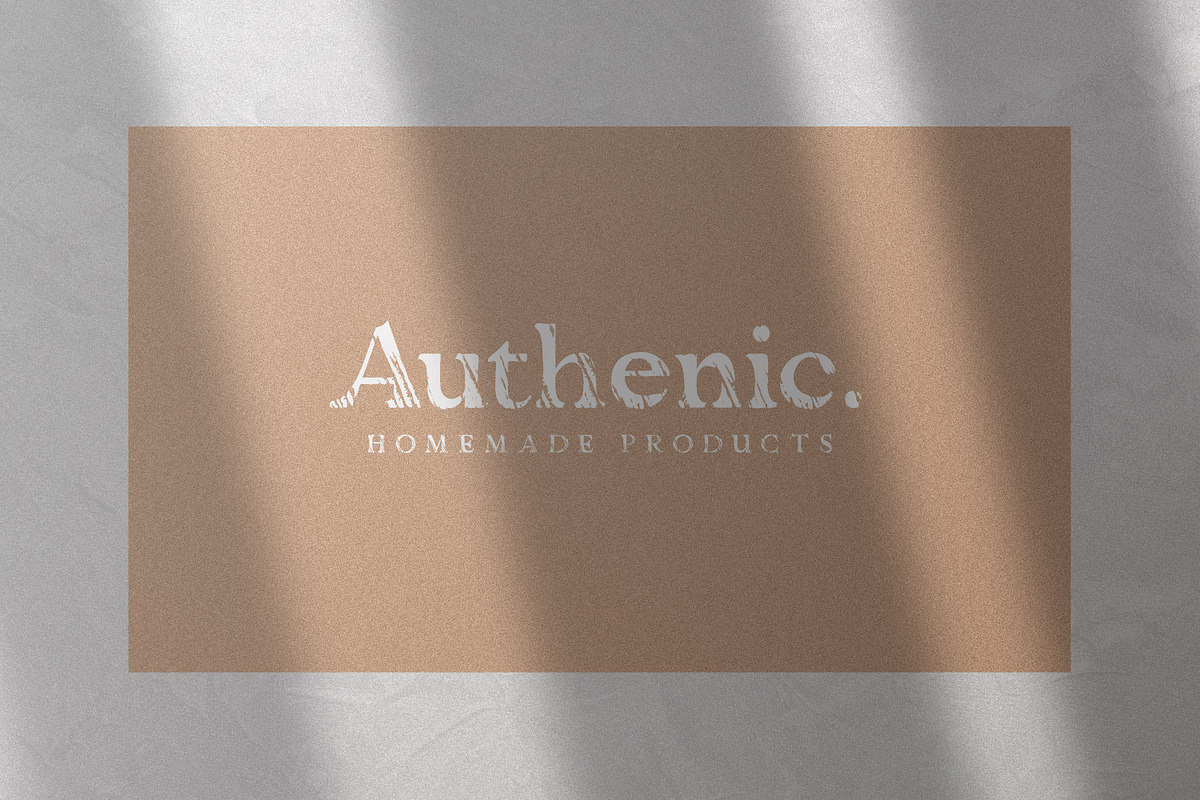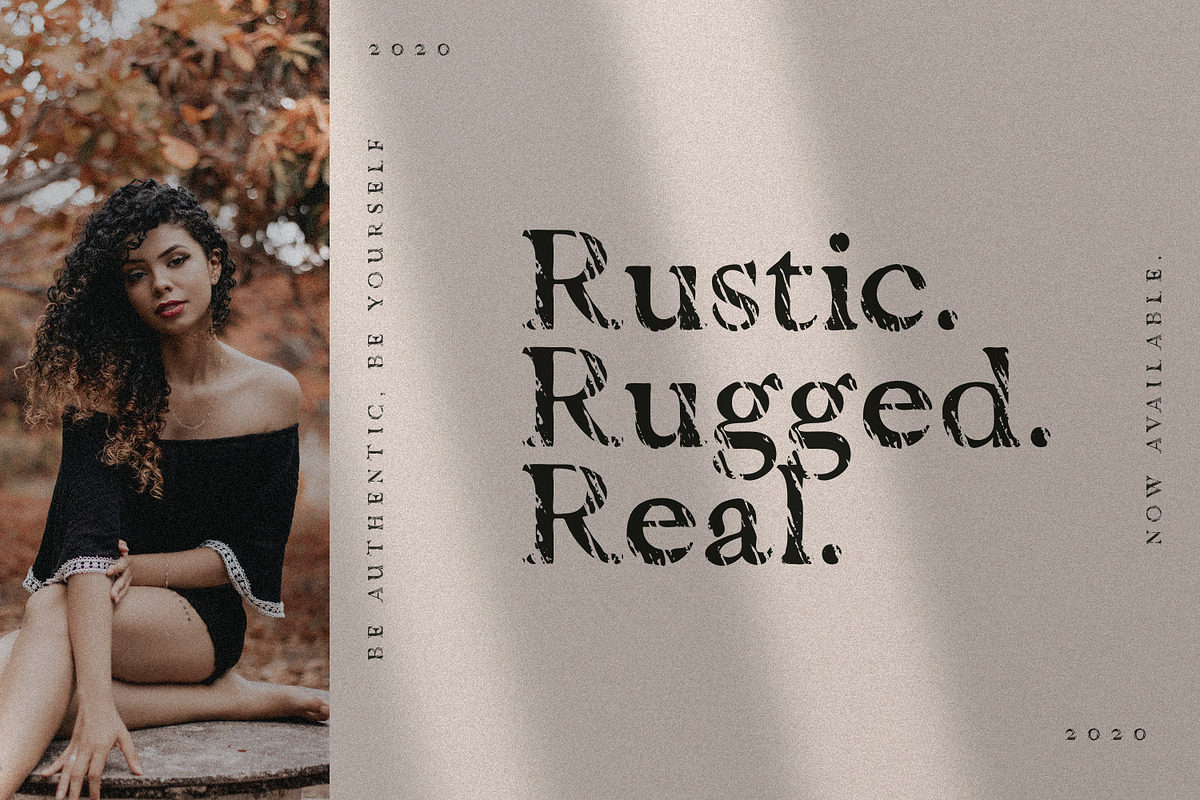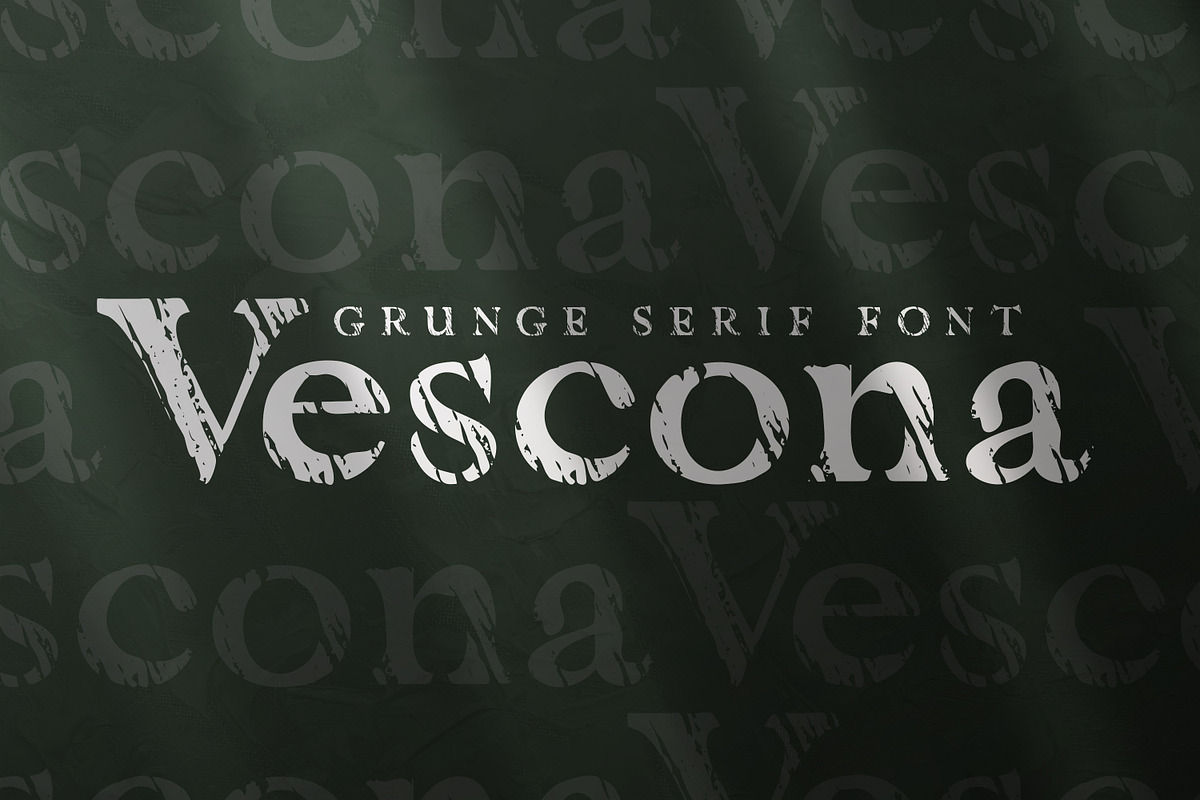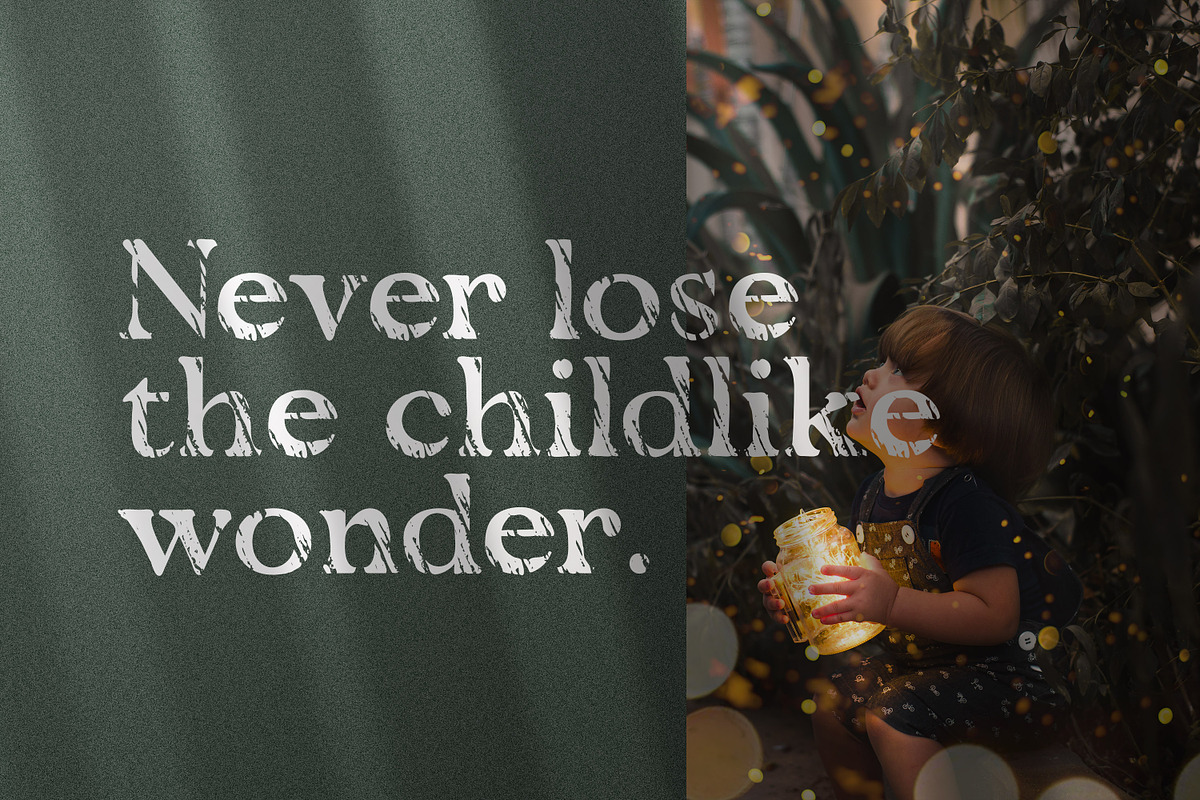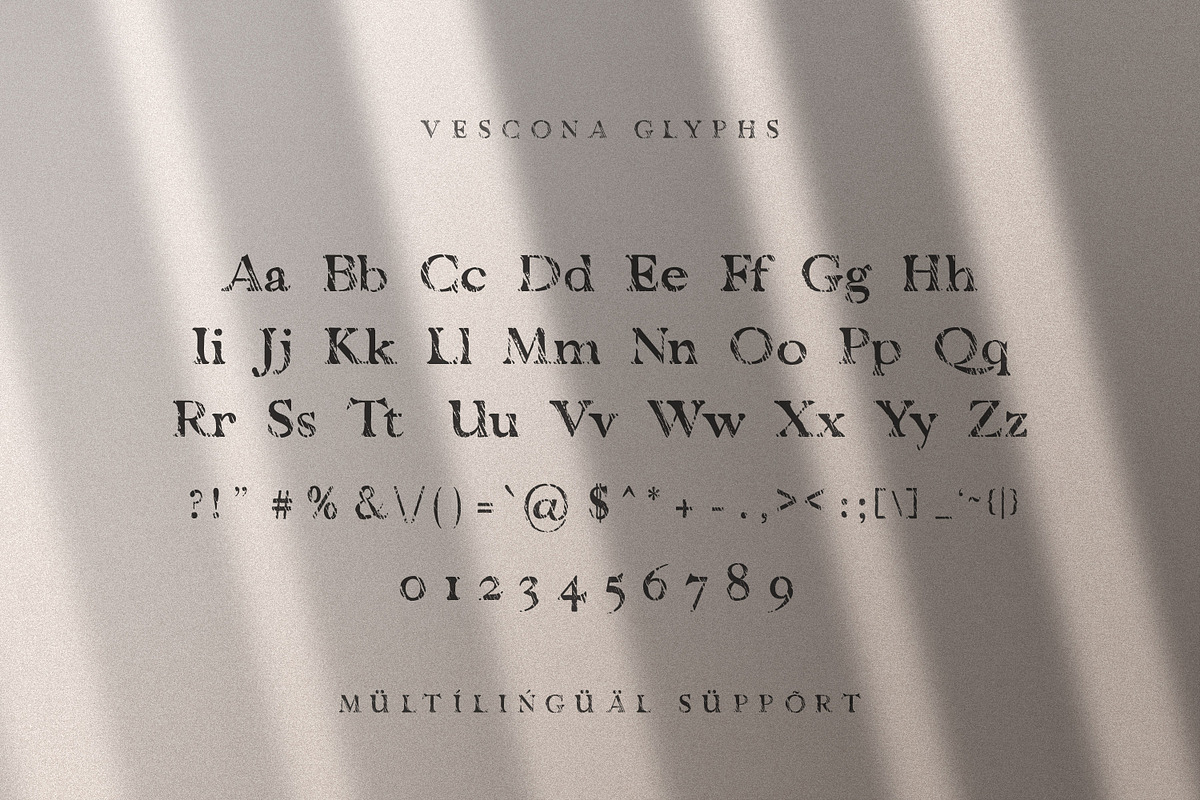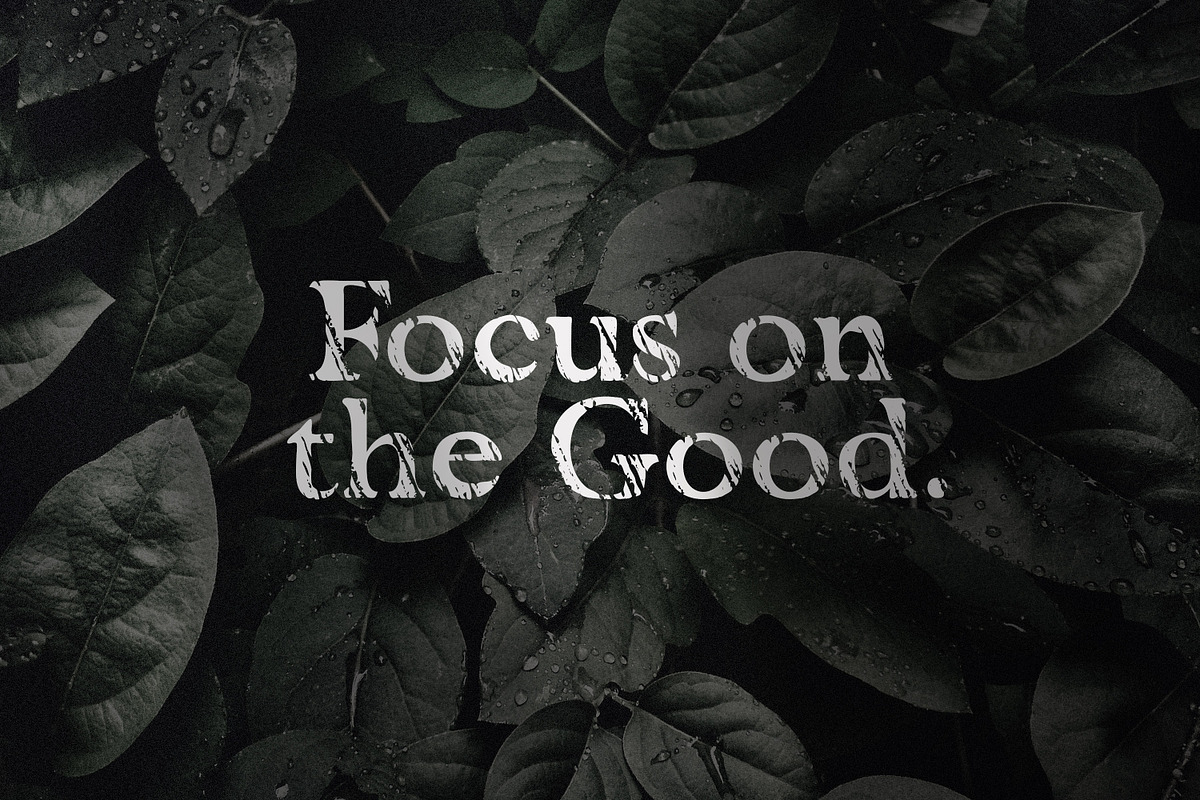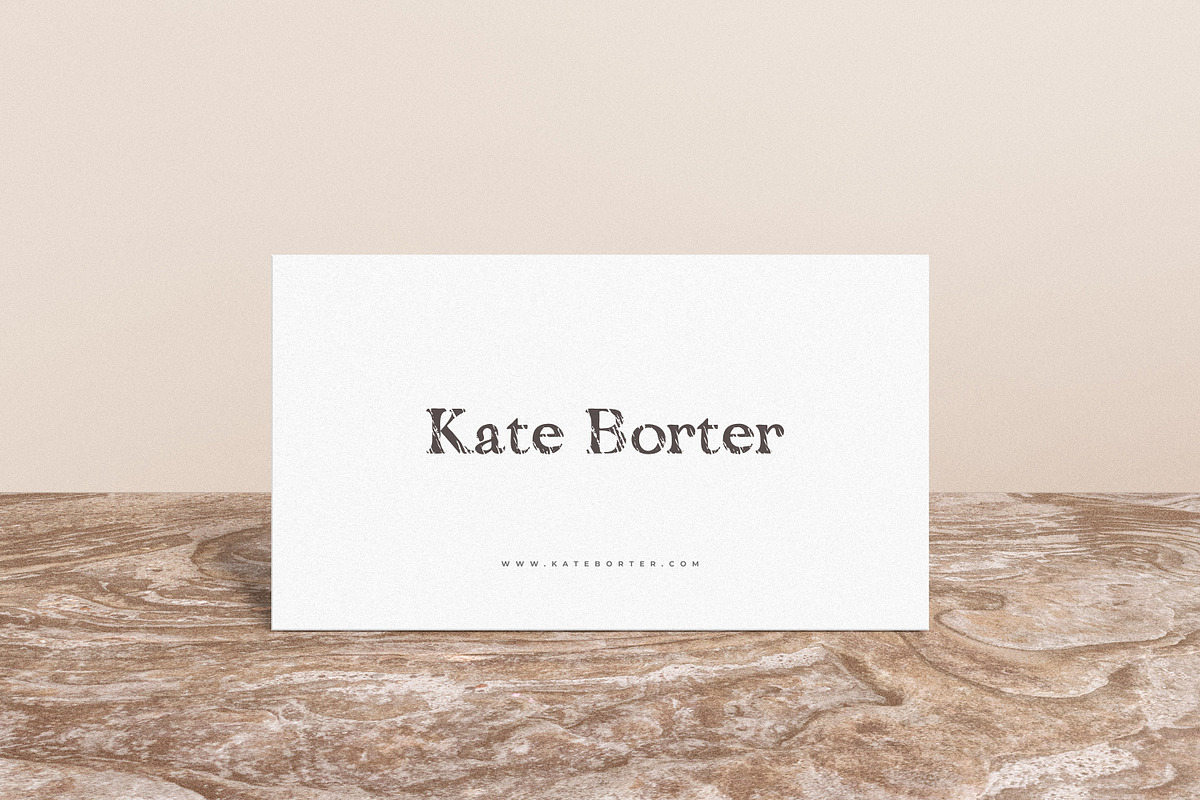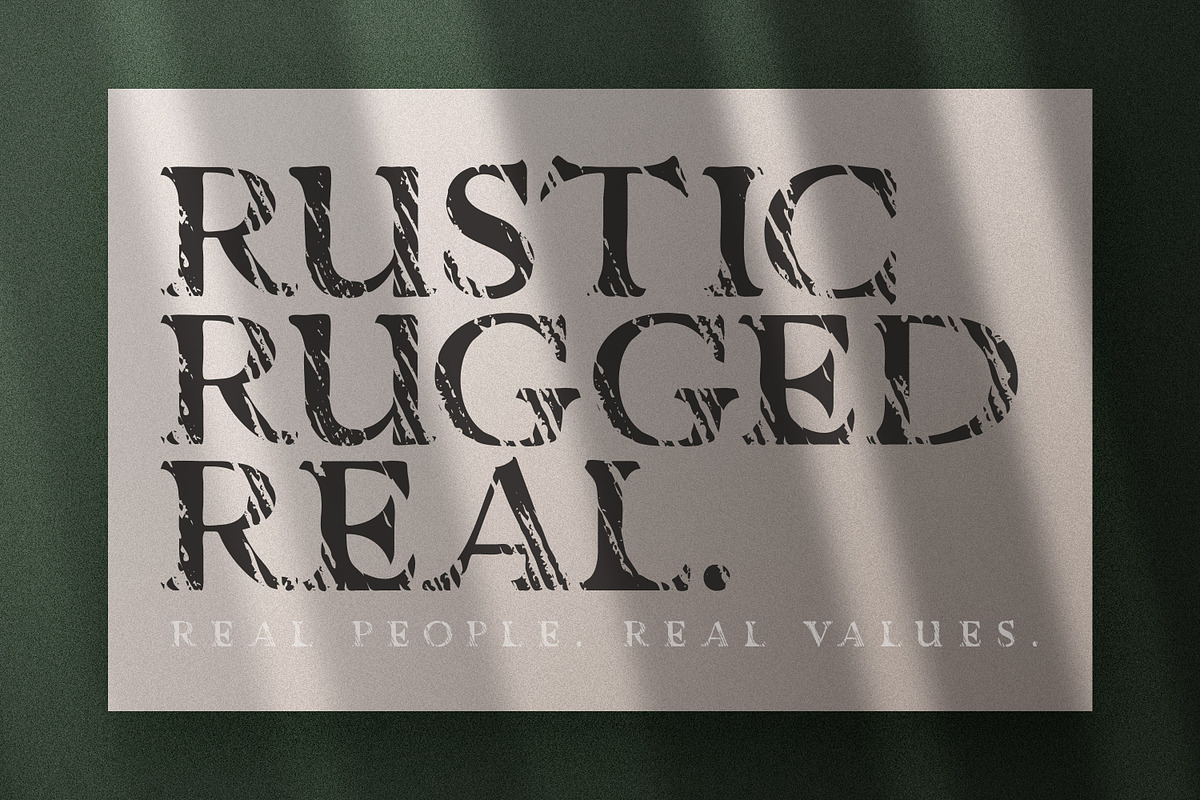
Vescona - Grunge Serif Font
Introducing Vescona - A Rustic and Rugged Serif Font.
This is a font for all projects that need to combine elegance with natural rustic vibe. Create logos, flyers, posters, invitations, hero headers, banners much more. The font includes uppercase, lowercase, numerals, puncutations and multilingual glyphs.